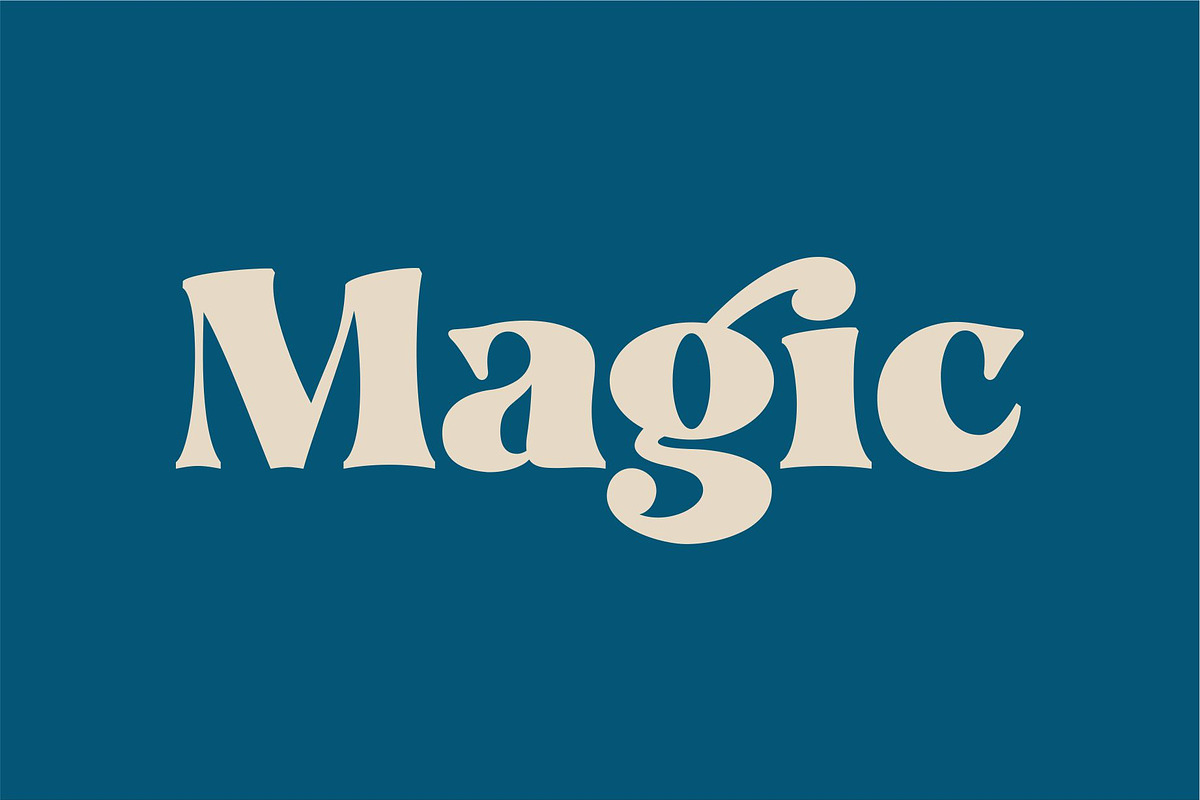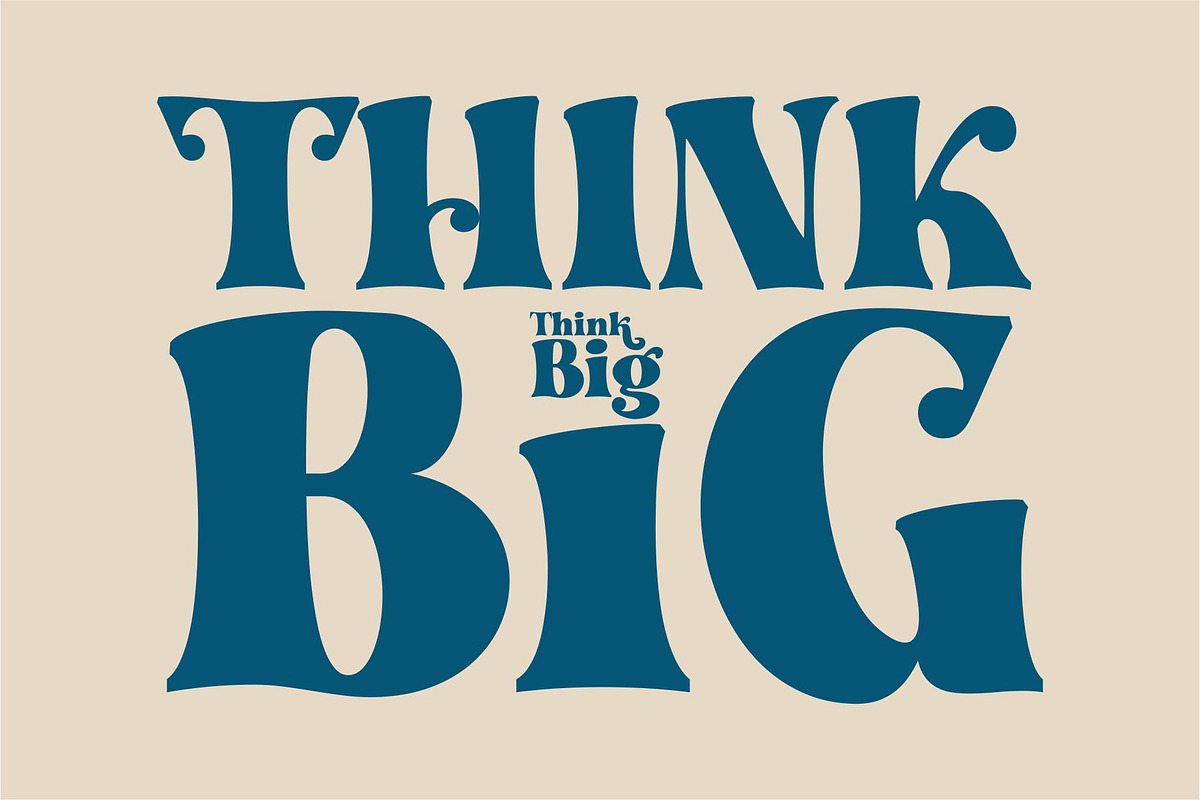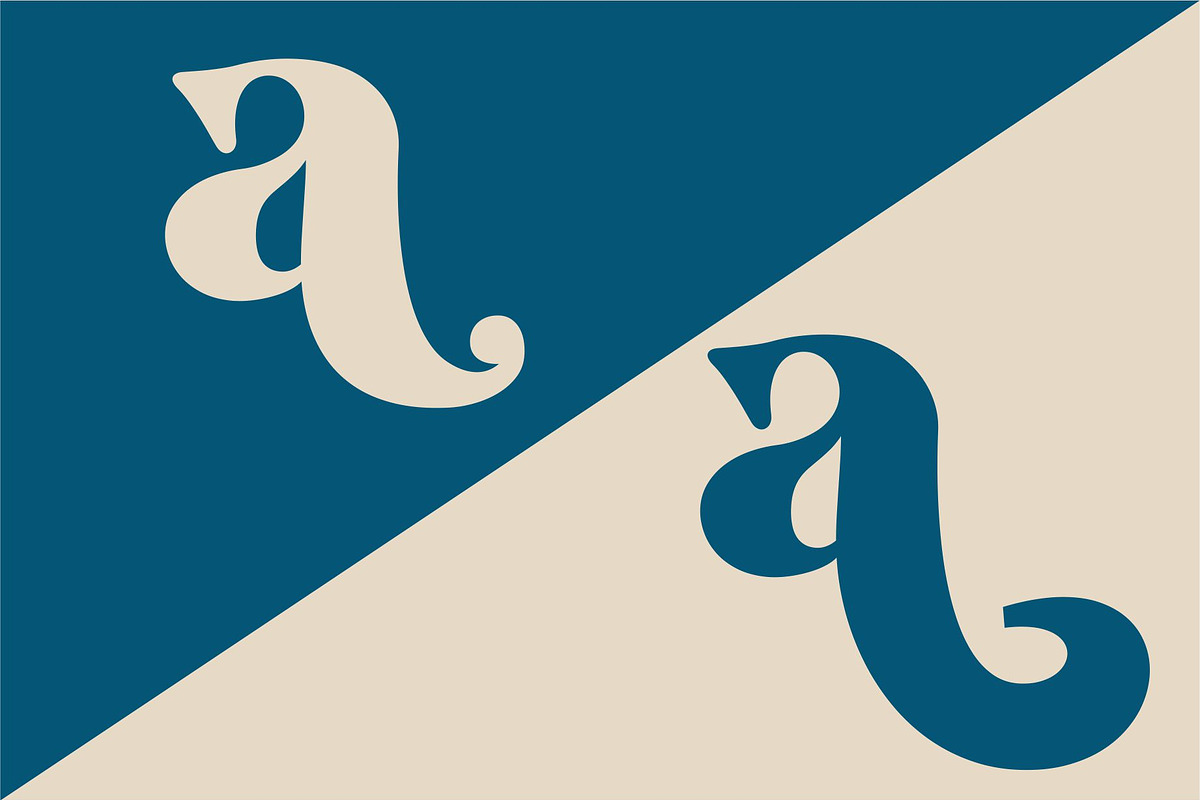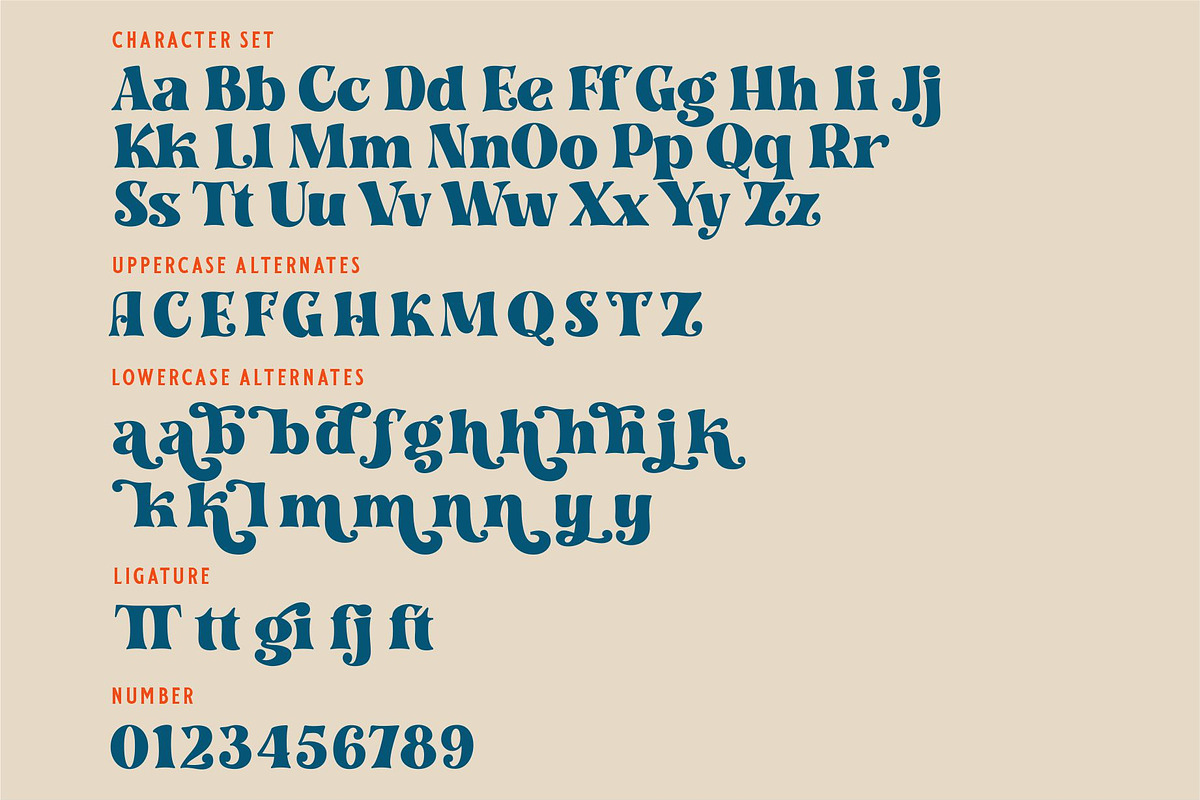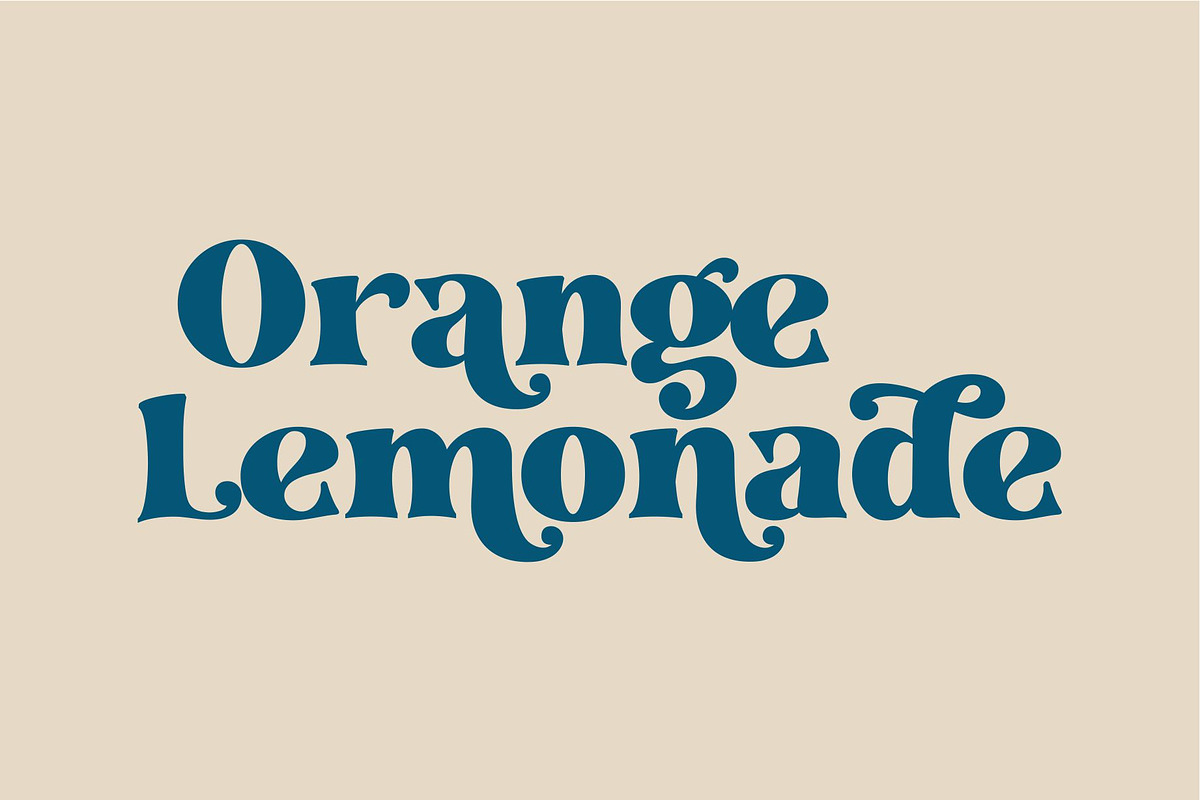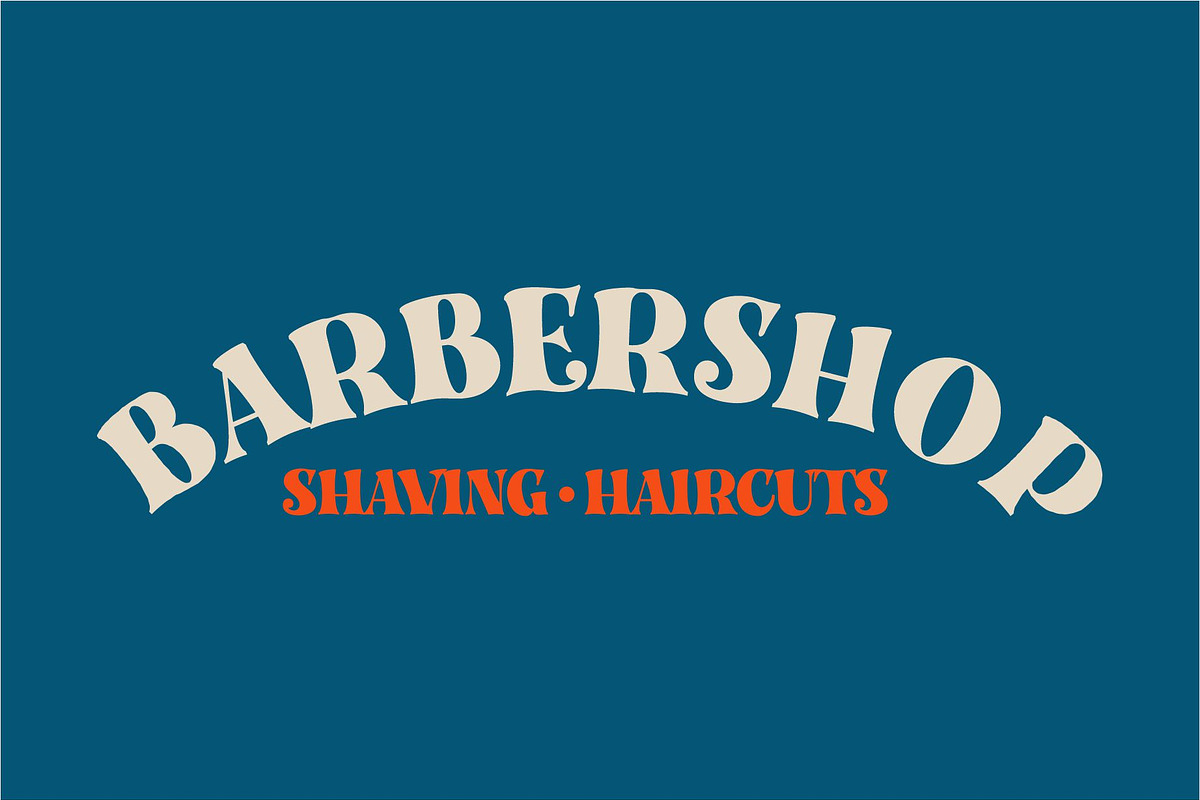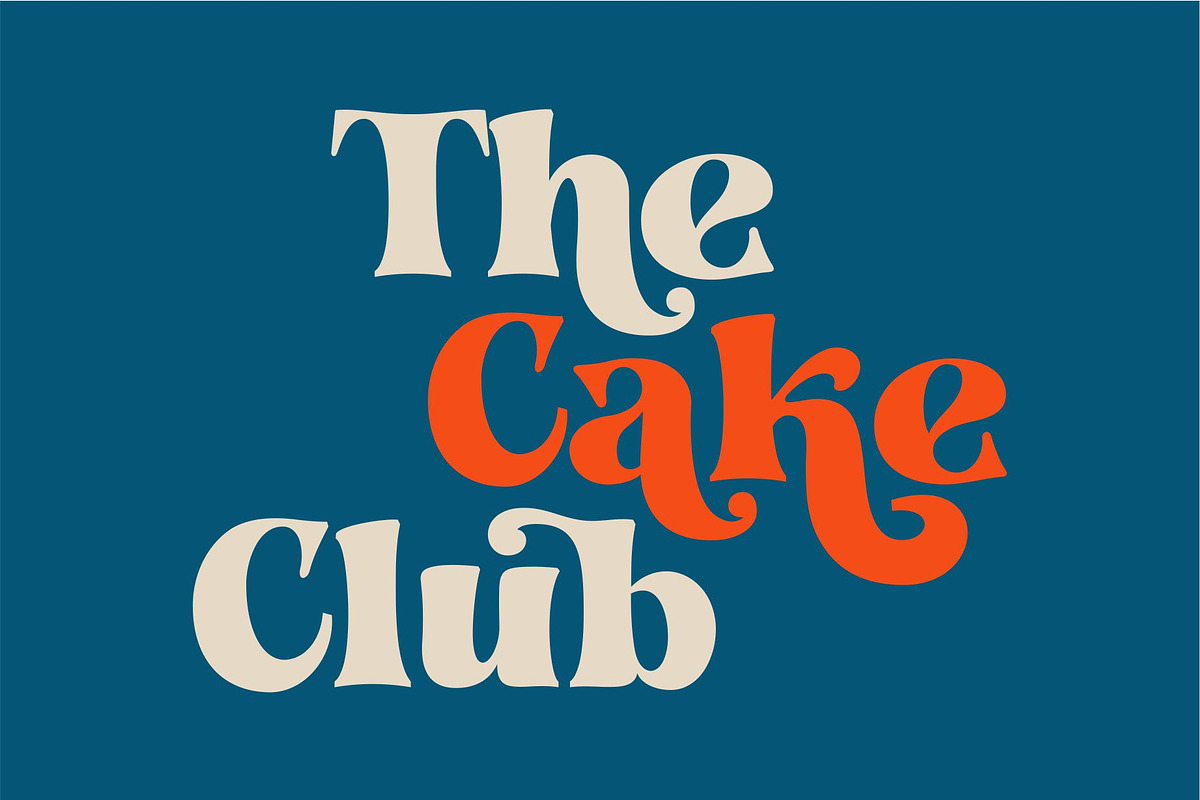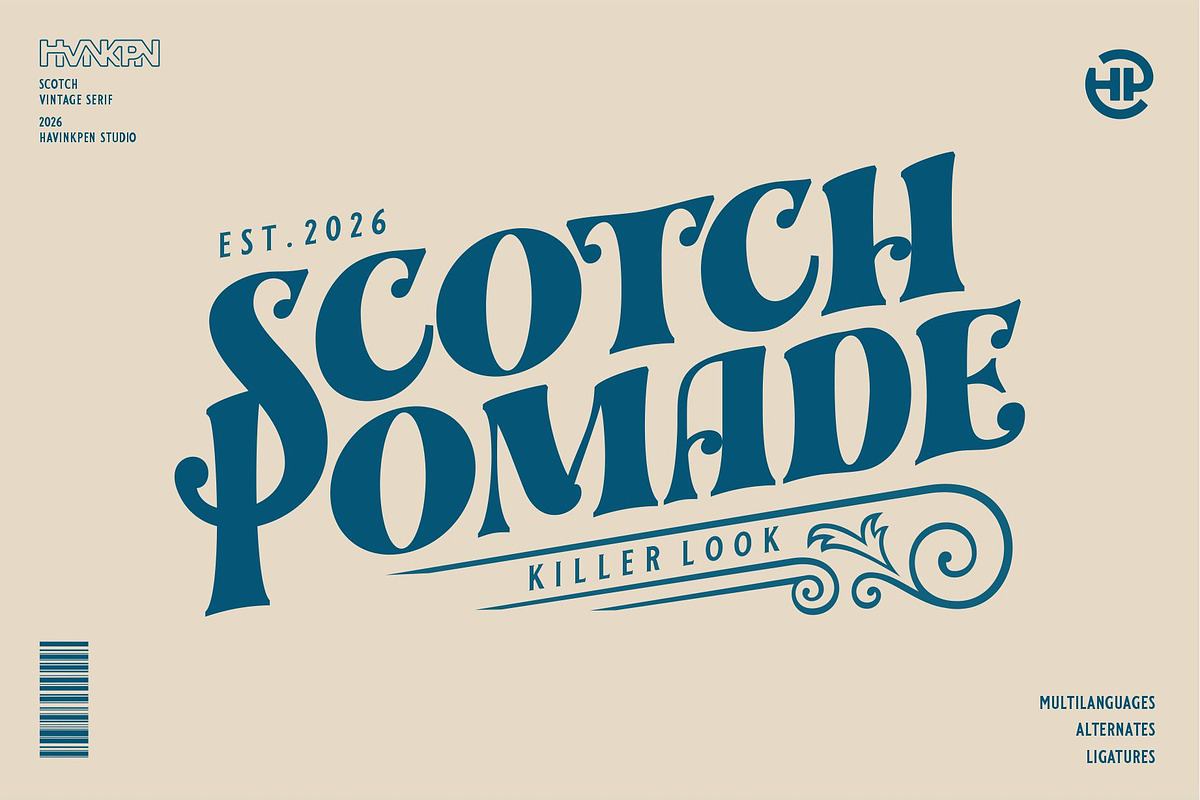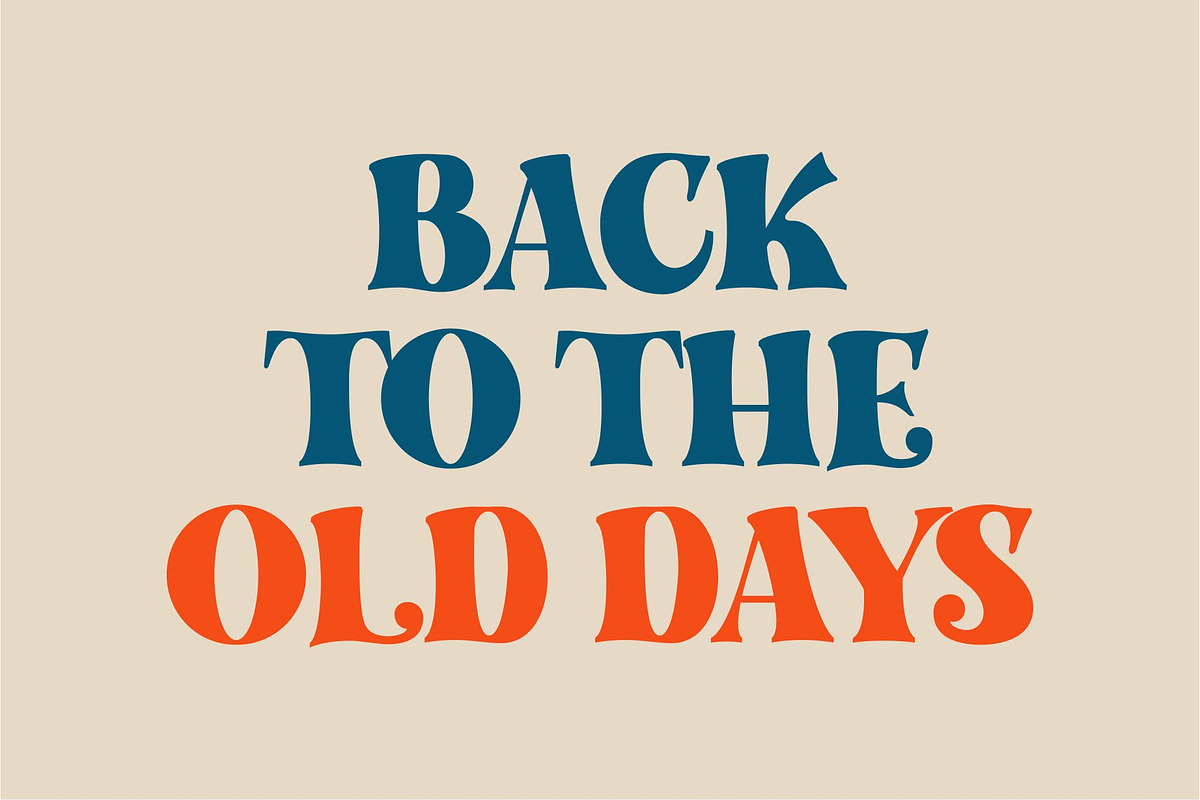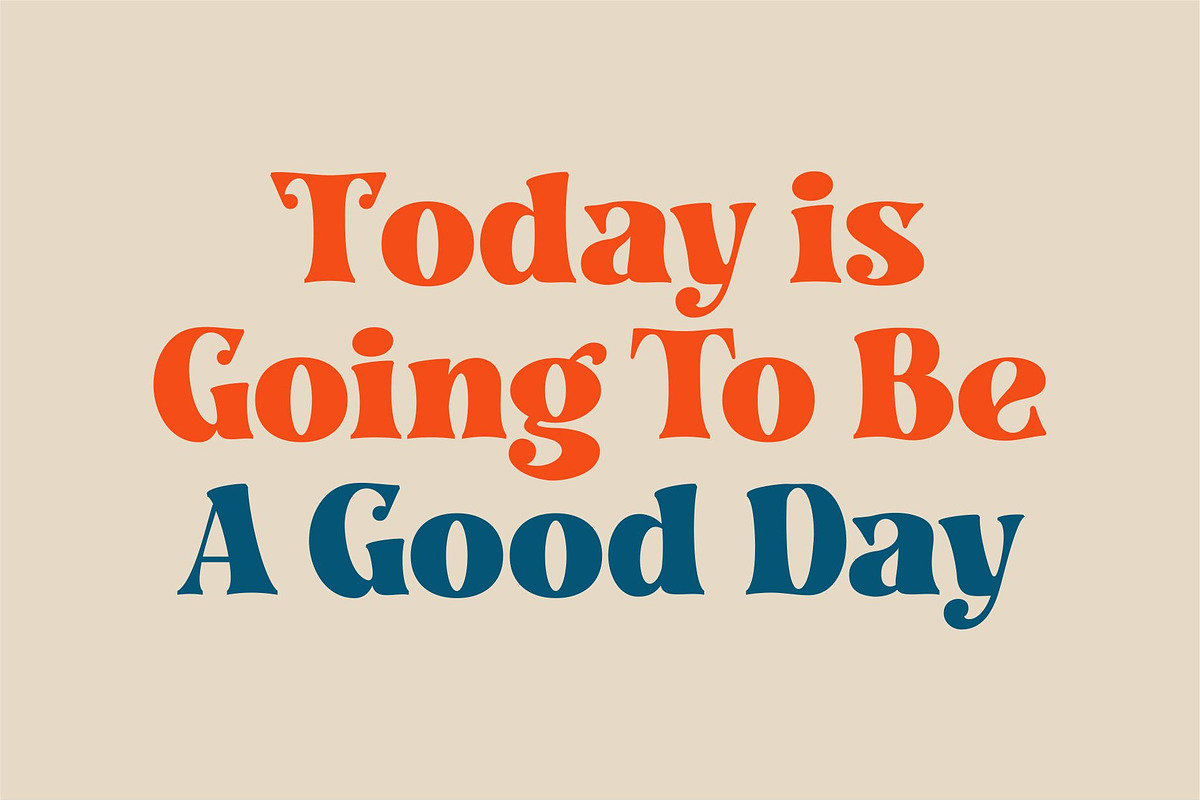
SCOTCH | VINTAGE SERIF
Bring timeless elegance and bold personality to your designs with Scotch, a handcrafted vintage serif typeface inspired by classic lettering and old-world typography aesthetics.
Designed with strong curves, expressive serifs, and a confident presence, this font delivers a perfect balance between retro charm and modern usability. Its distinctive letterforms and stylish alternates make it ideal for standout branding and eye-catching headlines.
Scotch captures the essence of vintage packaging, barbershop culture, and heritage branding—making it a powerful choice for designers who want to create a “killer look” with authentic character.